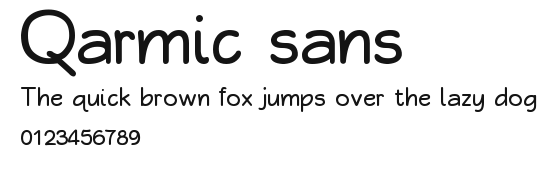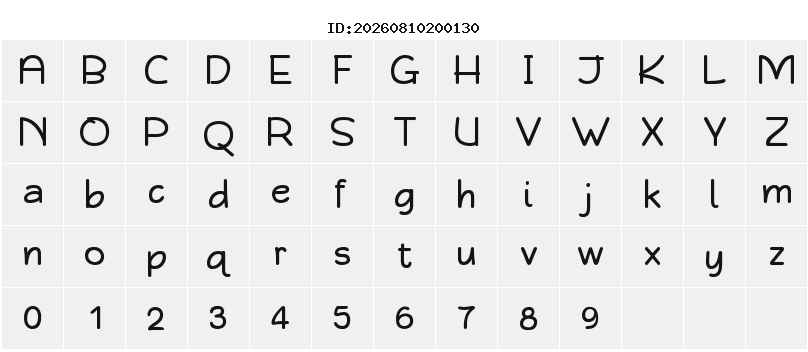
• Font Name: Qarmic sans
• Designer: Joanne Taylor
About Qarmic sans.ttf
Qarmic sans.ttf is a modern, elegant sans-serif font designed for ultimate readability and visual harmony. Perfect for branding, headlines, web design, and print materials.